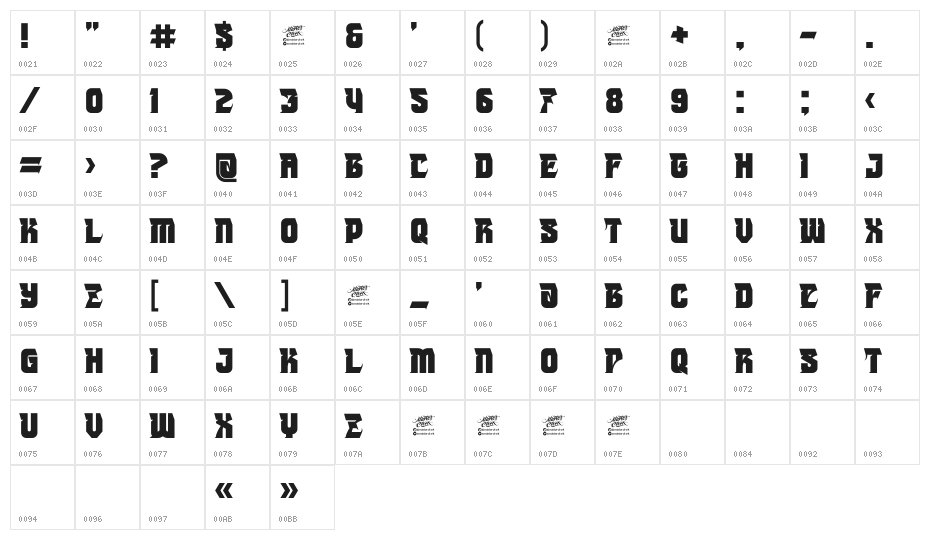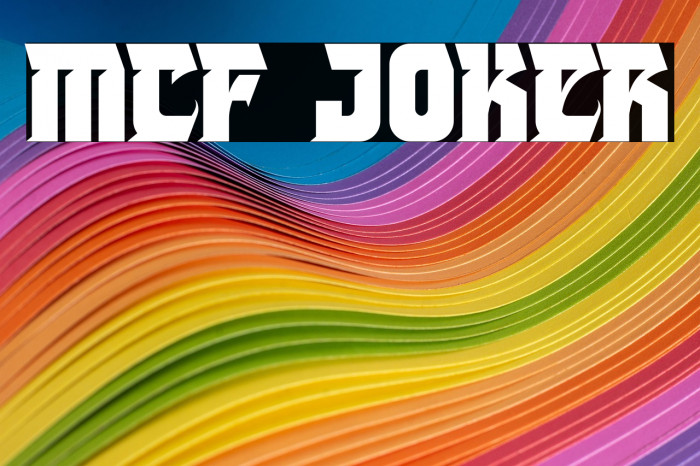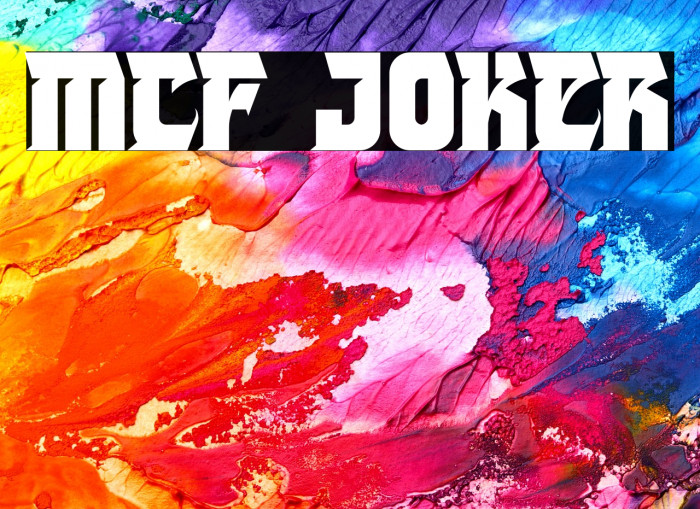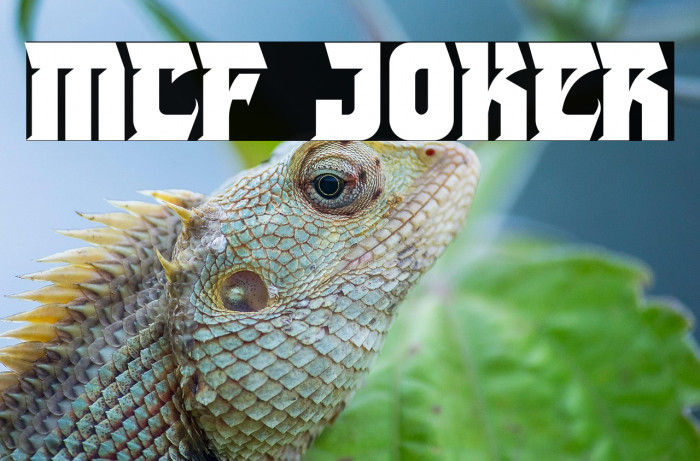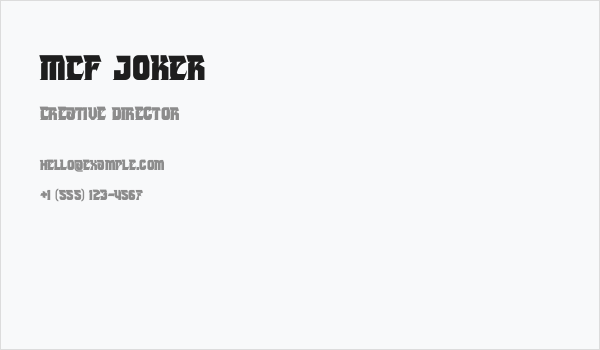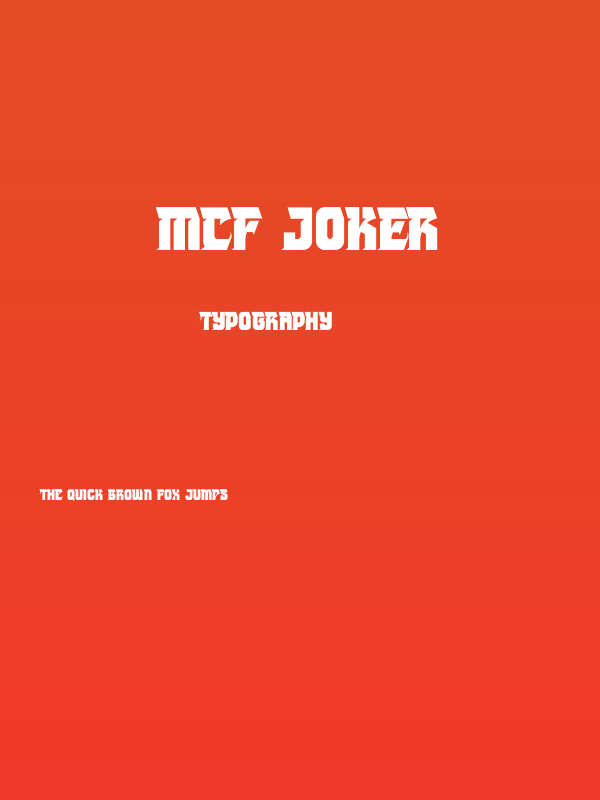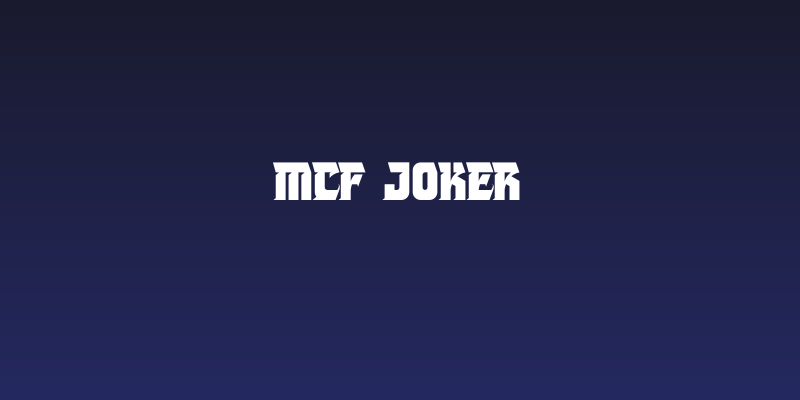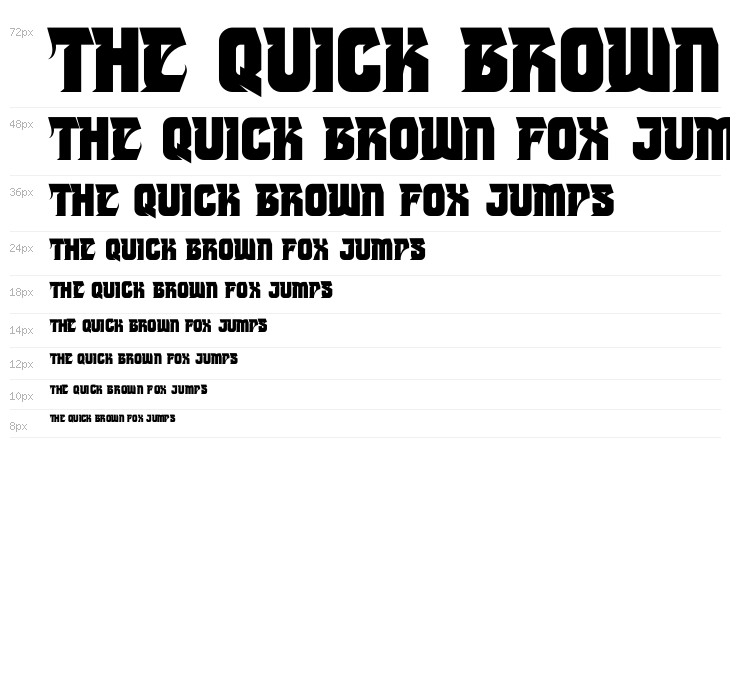
MCF Joker Font
MCF Joker Description
This font features a bold and striking design with sharp, angular edges and a distinctly modern aesthetic. The uppercase and lowercase letters share a consistent geometric style, characterized by thick strokes and pointed serifs that give it an aggressive and dynamic appearance. The numbers and special characters maintain this cohesive look, making the font suitable for attention-grabbing headlines and titles. Its unique style is reminiscent of graffiti or street art, adding an edgy and contemporary flair to any project.
Proposed ProjectsIdeal for posters, logos, branding, and any design requiring a bold, impactful statement.